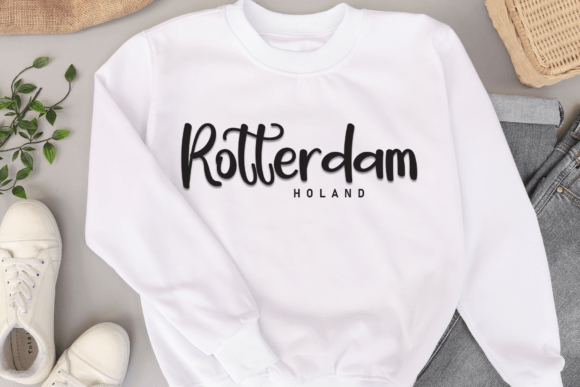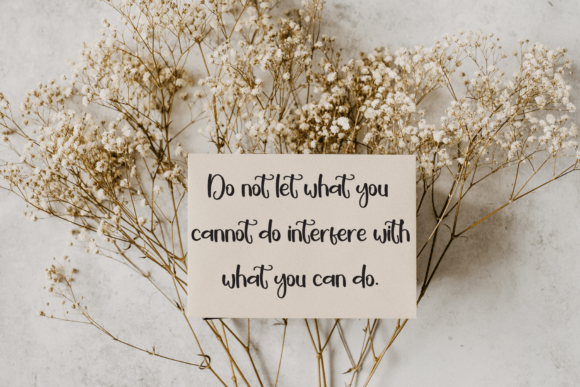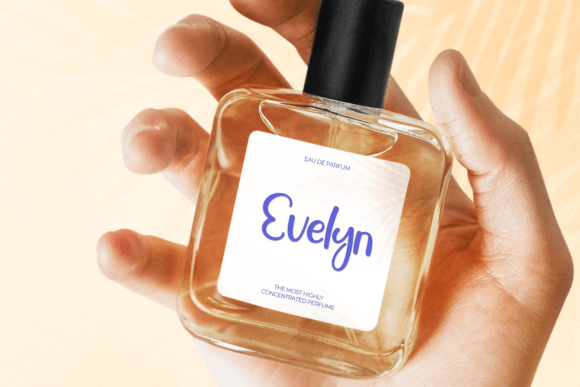
Introduction to Hightime Font
Have you ever found yourself rummaging through your design files, desperately searching for the perfect font to add that extra touch to your project? The struggle is real, especially when you’re working on a creative project that requires a delicate balance of elegance and charm. It’s in these moments that you wish you had a reliable design resource that could elevate your work to the next level.
Enter the Hightime Font, a stunning handwritten script font that is sure to become your go-to design companion. With its flowing, graceful curves and delicate strokes, this high-quality font adds a personal and sophisticated touch to any design, making it perfect for invitations, logos, and branding. Whether you’re looking for a free download or a high-quality font with a transparent background, the Hightime Font has got you covered.
Key Features of Hightime Font
- High-quality design resource ideal for creative projects requiring a unique touch.
- Comes in a single font size, making it easy to scale and adapt to different design requirements.
- Unique characteristics include a modern and sleek aesthetic, perfect for contemporary design projects.
- Suitable for use in a variety of creative contexts, including digital design, print media, and web development.
Honest Review: Hightime Font
I recently came across the Hightime Font and I’m excited to share my thoughts on this design resource. As a designer, I’m always on the lookout for high-quality fonts that can elevate my creative projects.
Here are some things that work well with the Hightime Font: ✨
- High-quality design: The font has a clean and modern aesthetic that looks great in a variety of contexts.
- Transparent background: This makes it easy to customize the font for use on different backgrounds and designs.
However, there are a few limitations to consider: ⚠️
- Limited character set: The font only includes a basic set of characters, which may not be sufficient for more complex design projects.
- No bold or italic versions: While the font looks great in its standard form, it would be nice to have bold and italic versions available for added flexibility.
Overall, I think the Hightime Font is a solid addition to any designer’s toolkit. While it may not be perfect, its high-quality design and transparent background make it a great choice for creative projects.
Tips for Getting the Most Out of Hightime Font
For the best results, use the Hightime Font in conjunction with a high-quality image or background. Experiment with different font sizes and styles to add visual interest to your design project. Additionally, consider using the Hightime Font in combination with other design elements, such as shapes and icons, to create a unique and eye-catching design.
The Hightime Font is ideal for a wide range of creative projects, including:
- Presentation slides
- Logos and branding
- Typography-based designs
Alternatives to Hightime Font
The Great Vibes Font is a beautiful, elegant script font that’s perfect for creative projects requiring a touch of sophistication. It’s a great design resource for wedding invitations, branding materials, and more. The Great Vibes Font is available for free download with a transparent background, making it easy to use in various design scenarios.
When to use: Formal events, luxury branding, high-end creative projects.
Comparison to Hightime Font: While Hightime Font is known for its modern feel, Great Vibes Font offers a more traditional, elegant look that’s perfect for those who want to add a touch of sophistication to their design.